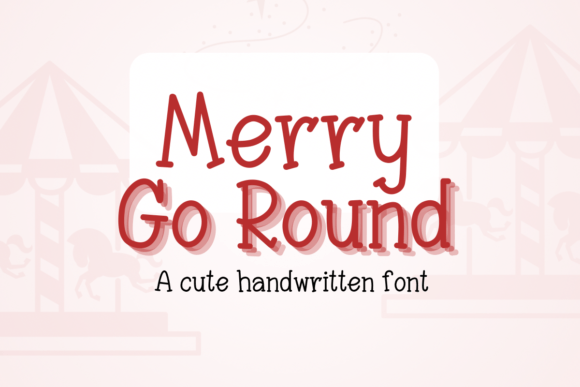
Unleash the whimsical charm of Merry Go Round, a captivating handwritten script font that invites you on a joyous typographic adventure. Inspired by the enchanting world of carousels, this font dances across your designs with a playful spirit, bringing life to your words.
With its adorable, neat, and clean style, Merry Go Round is the perfect choice for crafting digital prints that exude warmth and personality. Create eye-catching phrases for your social media posts on Facebook and Instagram, captivating journal entries, and stunning presentation slides that will leave a lasting impression.
Whether you're a seasoned designer or just starting your creative journey, Merry Go Round is your trusty companion, ready to transform your designs into unforgettable works of art. Its versatility knows no bounds, making it ideal for a wide range of projects, from personal to professional.